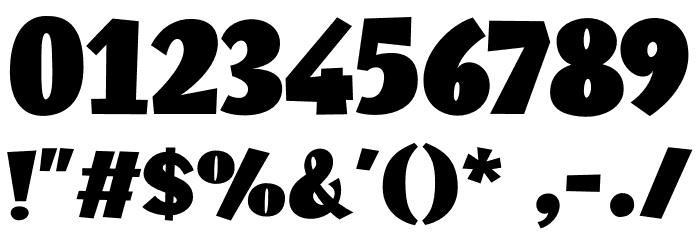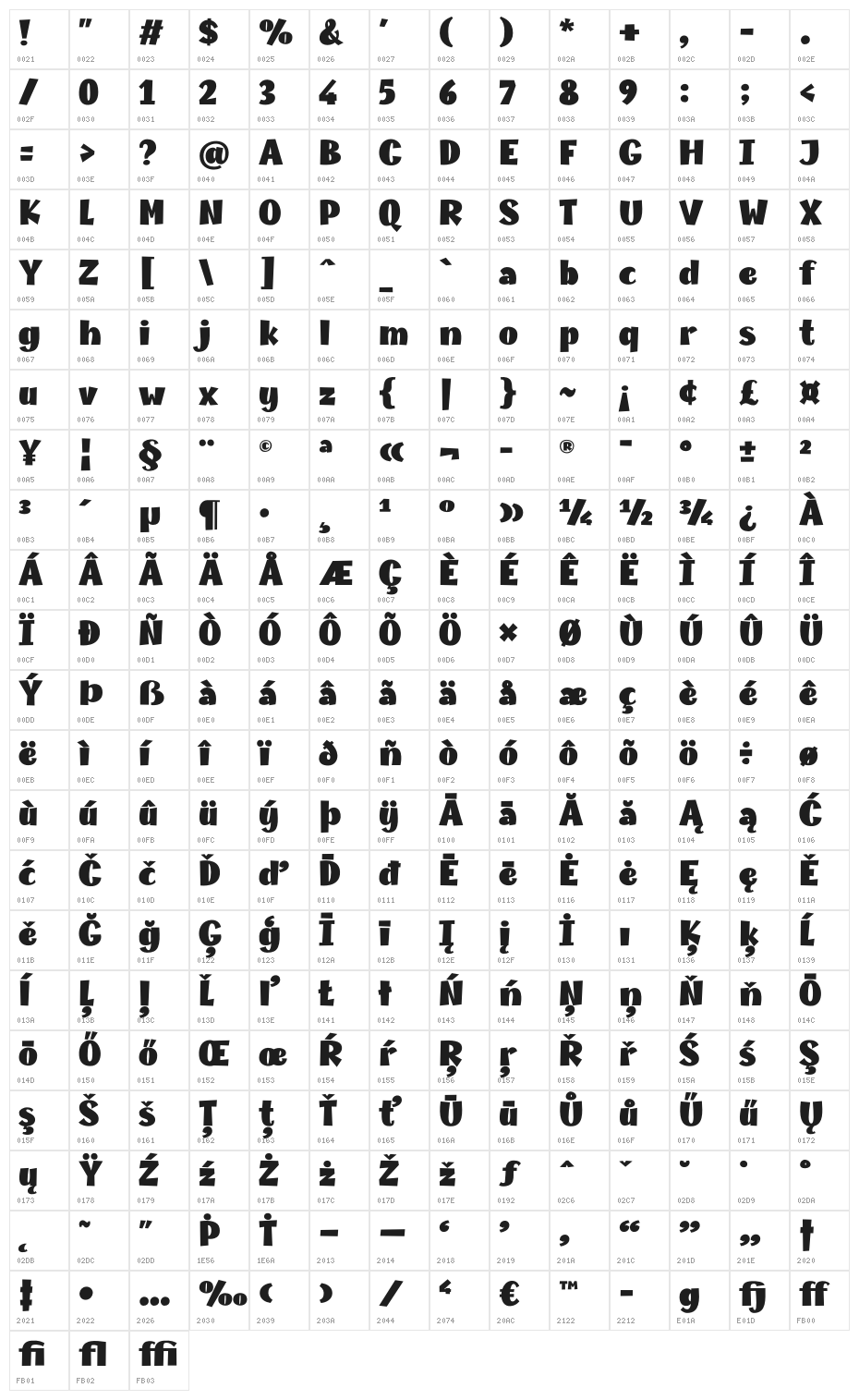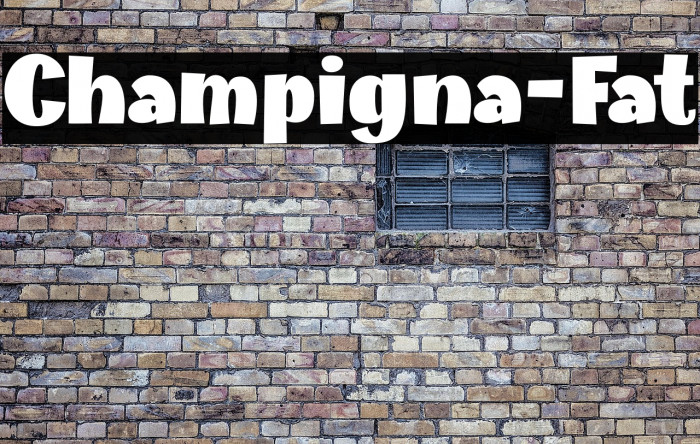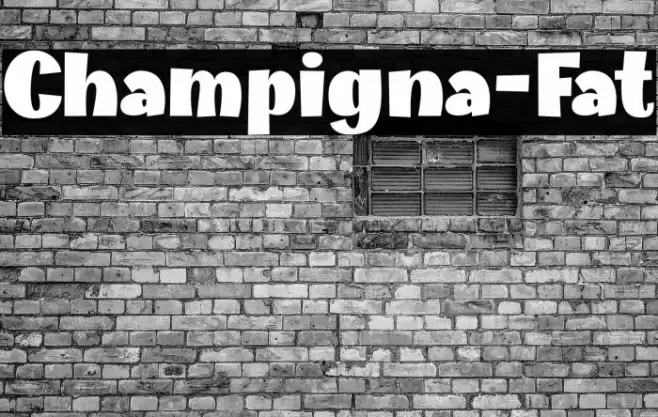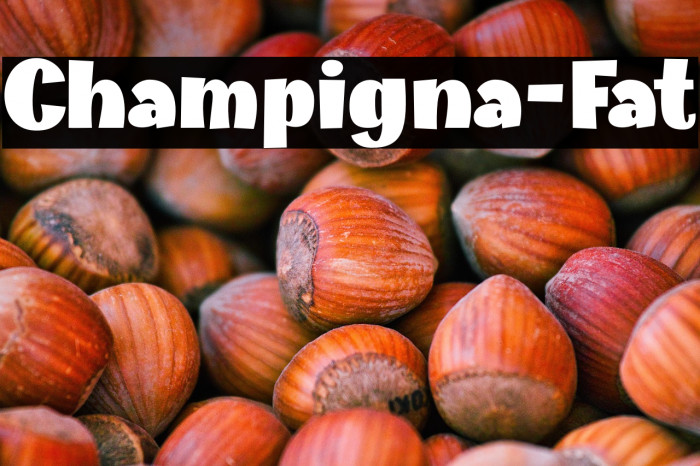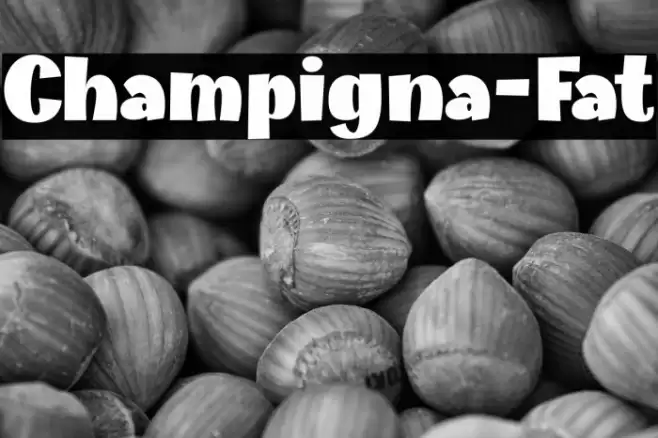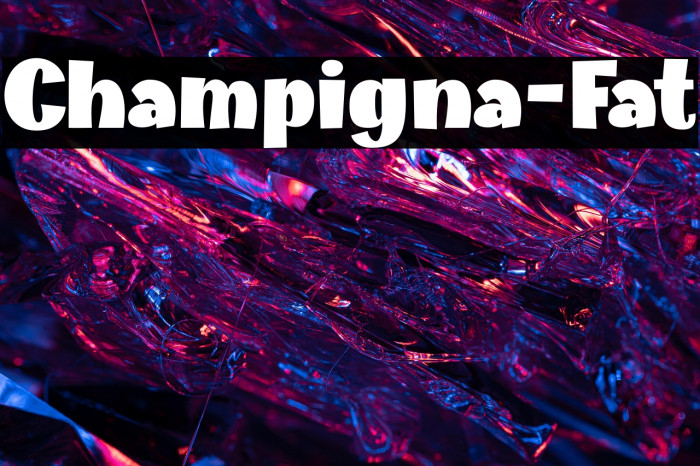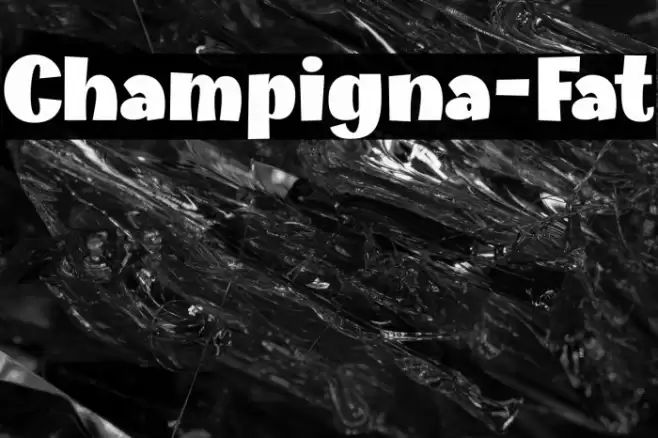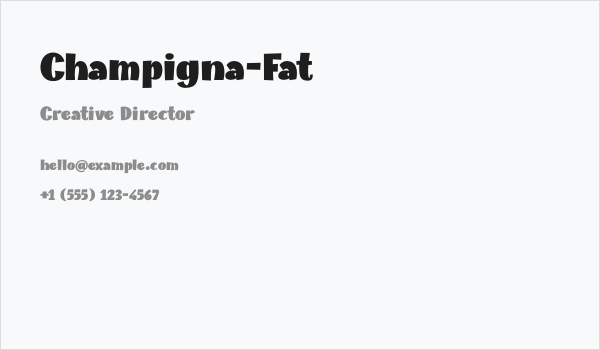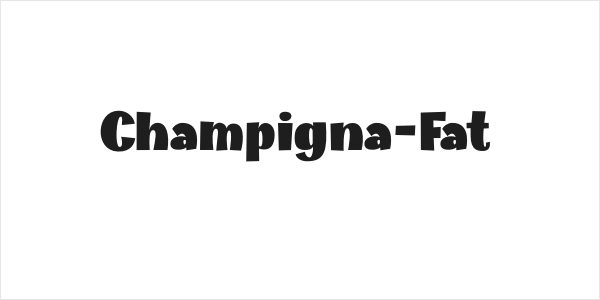
Champigna-Fat Font
Champigna-Fat Description
This font is a bold, playful typeface with a distinctive, chunky appearance. The characters are wide and have a whimsical, almost cartoonish style, making them stand out prominently. The strokes are thick and consistent, providing a strong visual impact. The uppercase and lowercase letters maintain a uniform weight, contributing to a cohesive look. The numerals and special characters follow the same bold design, ensuring consistency across all elements. This font is ideal for projects that require a fun, eye-catching aesthetic.
| Overall Style | Playful, Fun, Bold |
| Proposed Projects | Perfect for children's books, playful branding, posters, and event invitations. |